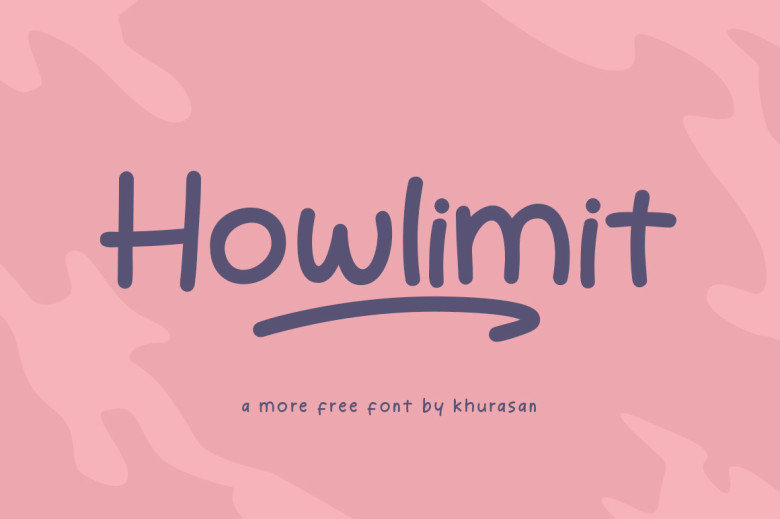
Howlimit Font
Howlimit is an elegant and contemporary handwritten font designed specifically to stand out. Perfect for posters and logos, but also useful when creating book covers, magazine covers and banners – use this font for beautiful designs to stand out among your competition! Add it to any of your projects to see just how amazing they become.
Howlimit Handwritten Script Font